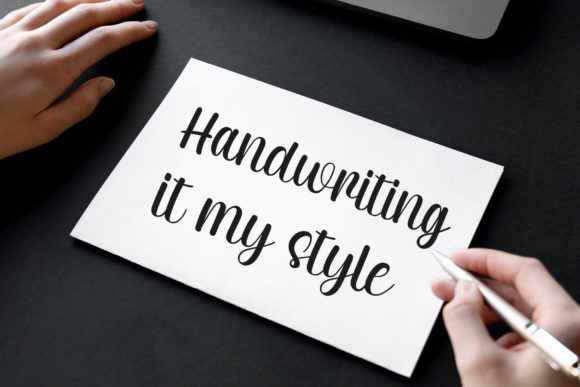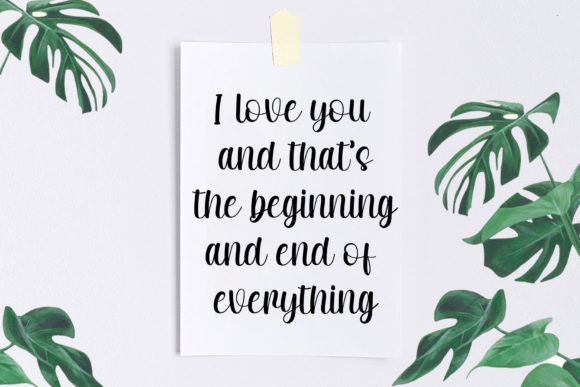
Farmhouse Market Font
db-ku.com - Script & Handwritten -- Farmhouse Market is a stylish and trendy script font. It looks stunning on wedding invitations, thank you cards, quotes, greeting cards, logos, business cards and every other design which needs a customized touch.